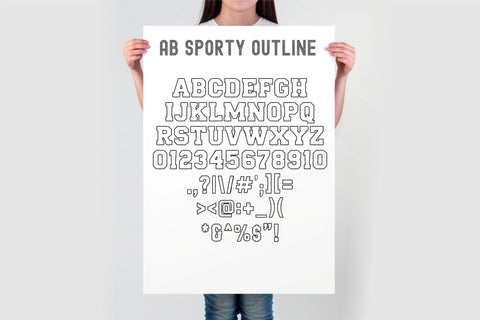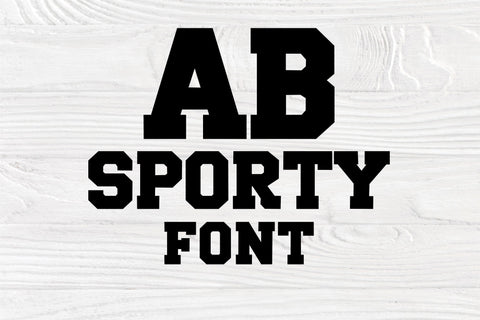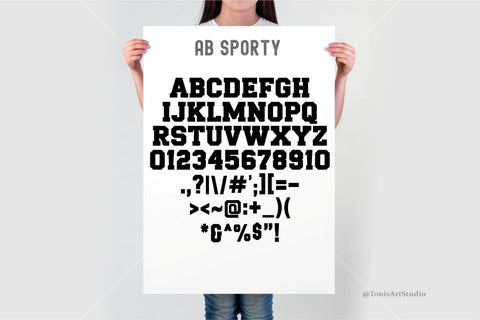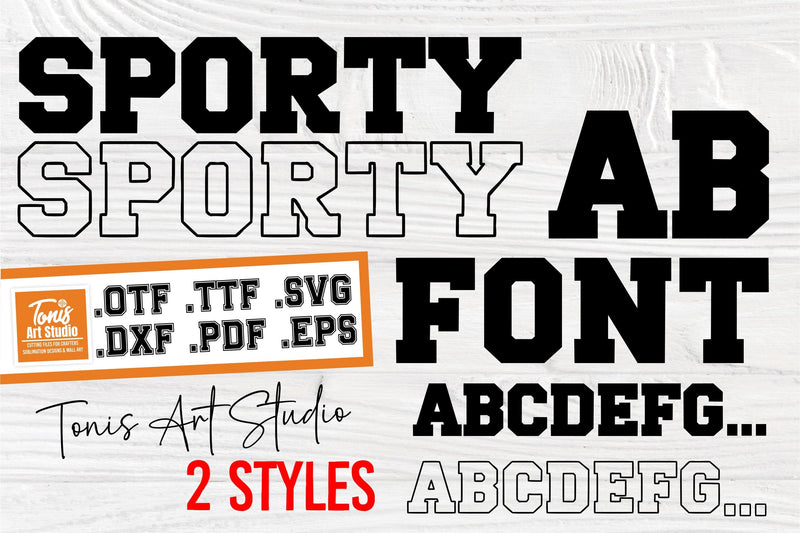
Give your designs a bold, athletic edge with the AB Sporty font, now available in two varsity-inspired styles: Bold and Outline. Perfect for projects that need a strong and dynamic look, from sports branding and team logos to school spirit wear and custom merchandise. The Bold style delivers a powerful, clean appearance, while the Outline version adds a versatile and creative touch, offering endless design possibilities. Ideal for Cricut, Silhouette, and other cutting machines.
- Two styles: Bold and Outline for diverse design options.
- Bold capital letters and numbers (0123456789) included in both styles.